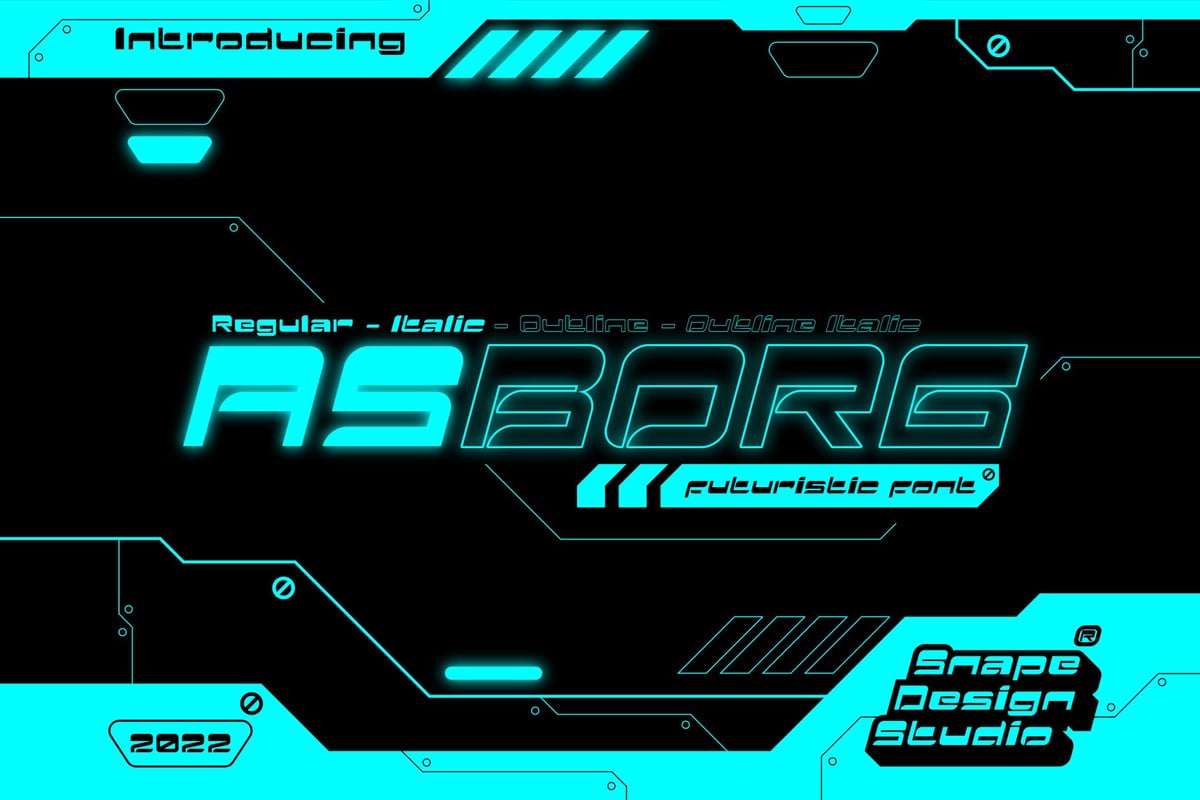
Asborg – Futuristic Font
Transform your projects with Asborg – a cutting-edge futuristic font that screams modern technology and space-age design. This sleek typeface delivers the perfect solution for technology themes, digital interfaces, and space galaxy aesthetics. Asborg brings a professional futuristic edge to your creative work that makes projects instantly stand out. Ideal applications include: Movie titles and film projects Documentary and video production Logo design and branding Poster and promotional material...